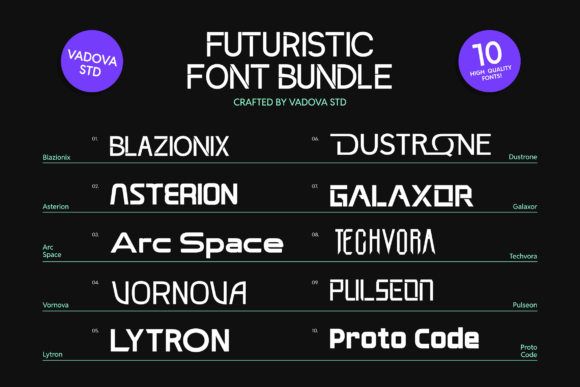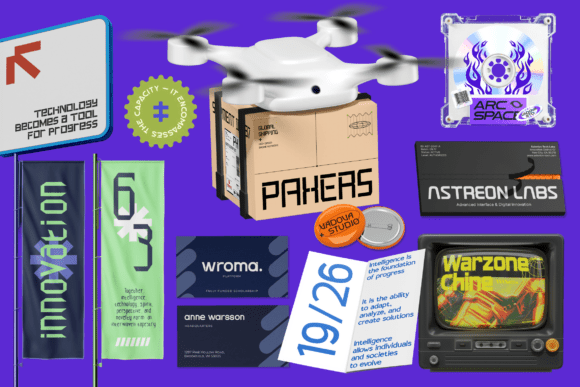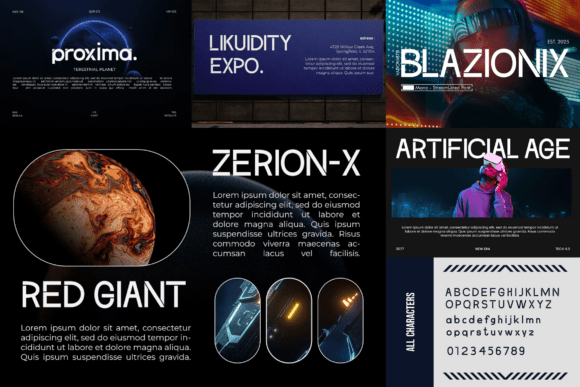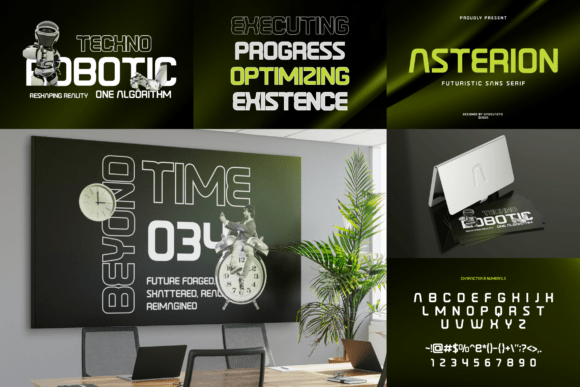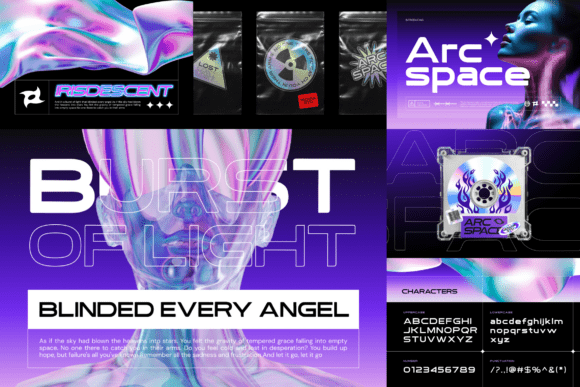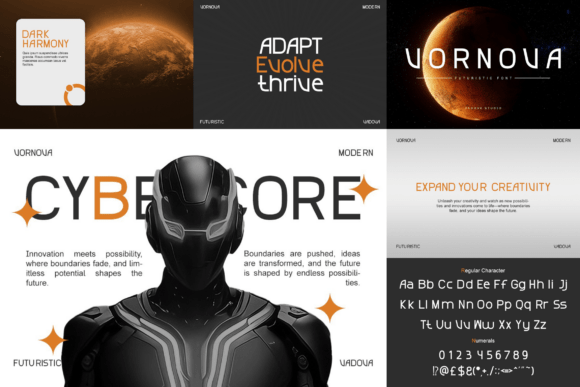
Unlocking the Future of Design: A Deep Dive into Futuristic Bundle Vol.02 Font
I’ll never forget the late nights spent scrolling through font libraries, searching for that perfect typeface to bring my design project to life. The brief was simple: create a futuristic sci-fi poster that would transport viewers to another galaxy. But the font – ah, the font – was proving to be a major roadblock. That was until I stumbled upon the Futuristic Font Bundle Vol.02. This game-changing collection of 10 bold, cutting-edge typefaces has been a revelation, and I’m excited to share my experience with you.
A Bold and Cutting-Edge Type Collection
The Futuristic Font Bundle Vol.02 is designed for next-generation design, featuring sharp geometry, digital precision, and strong sci-fi aesthetics. Each typeface is crafted to stand out in display use with angular forms, tech-inspired details, and powerful character presence. Whether you’re designing tech branding, gaming visuals, cyberpunk posters, sci-fi interfaces, or experimental digital artwork, this bundle gives you a strong futuristic typographic identity.
- ✅ Versatility: With 10 unique fonts, there’s something for every project and personal style.
- ✅ High-Impact: These fonts are designed to make a statement, perfect for display use and grabbing attention.
- ✅ Tech-Inspired: The sci-fi aesthetic is on point, with angular forms and digital precision that screams futuristic.
- ✅ Easy to Use: The fonts are well-organized, and OpenType features make it easy to get creative.
- ⚠️ Some fonts may not work well for body text: These typefaces are designed for display use, so be mindful of readability for longer blocks of text.
- ⚠️ Glyph limitations: While the fonts offer a range of glyphs and stylistic alternates, some users may find the selection limited for specific projects.
The Futuristic Font Bundle Vol.02 was crafted with the vision of creating a collection that embodies the spirit of innovation and forward-thinking design. Inspired by the world of sci-fi and cutting-edge technology, the designers aimed to create typefaces that would transport users to a futuristic realm. With a focus on sharp geometry, digital precision, and strong sci-fi aesthetics, this bundle is the perfect tool for designers looking to push the boundaries of creativity.